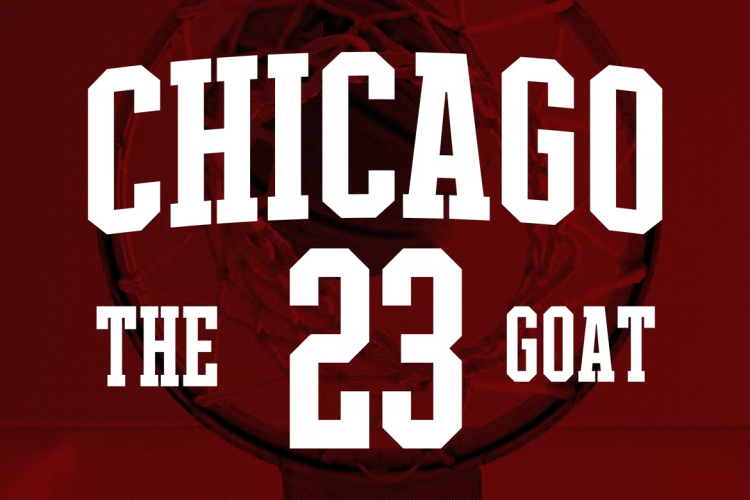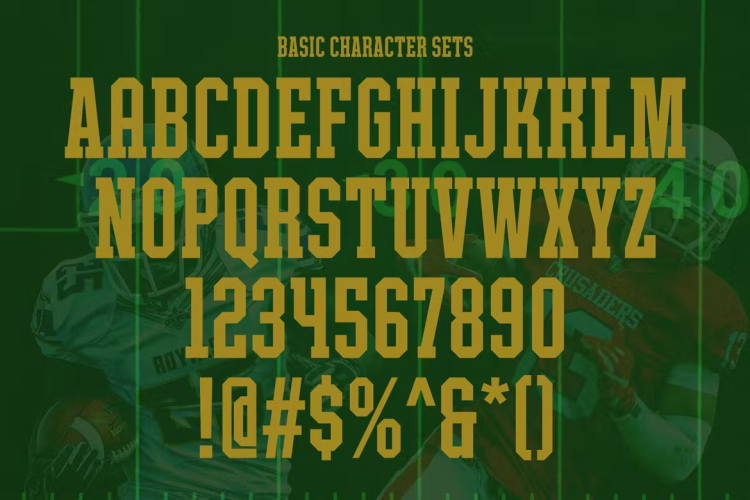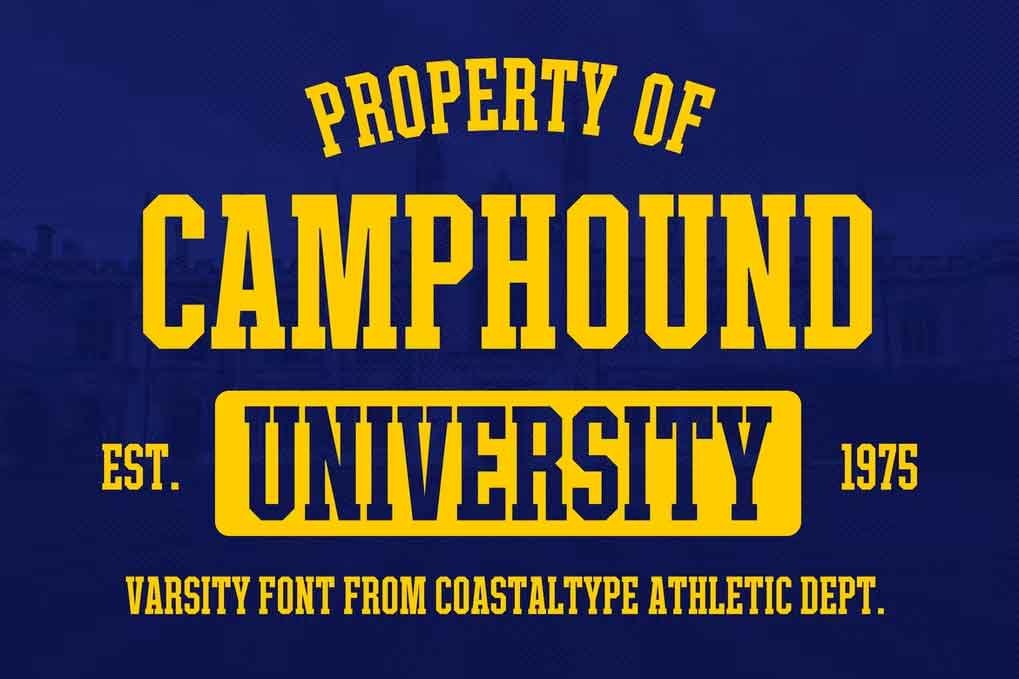
Camphound Font
Camphound is a display slab serif font inspired by varsity, college and university sports as well as the military. Camphound is great for sports, sports teams, schools, display work, quotes, posters, acronyms and headings.
Where Camphound Font works best
Reports, white papers and book interiors hold the eye longer when the text face has real serifs; Camphound Font keeps that rhythm without looking old-fashioned.
Food, spirits and cosmetics brands lean on serif wordmarks to suggest age and care. Camphound Font gives that signal at wordmark size.
Set Camphound Font for the body of an award or a diploma and keep the recipient name in a script; the pairing is what makes a document feel official.
What kind of work does Camphound Font suit?
It sits in the Serif Fonts group and reads as display, professional, serif, serif fonts. That makes it a candidate wherever those qualities help: headings, packaging, social graphics and brand work. Set it at the size you plan to use before deciding.